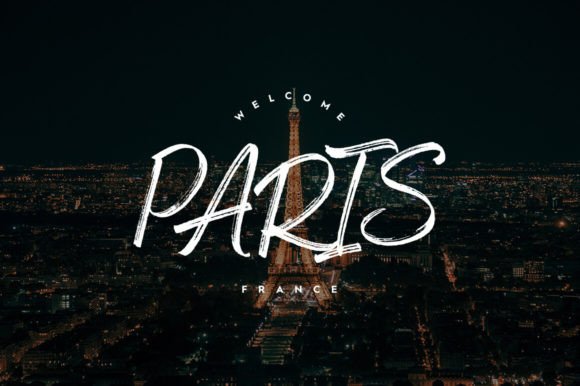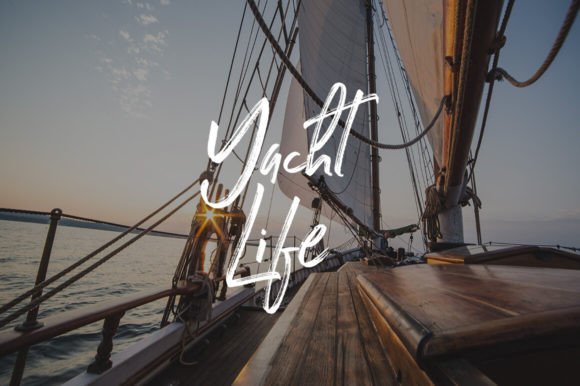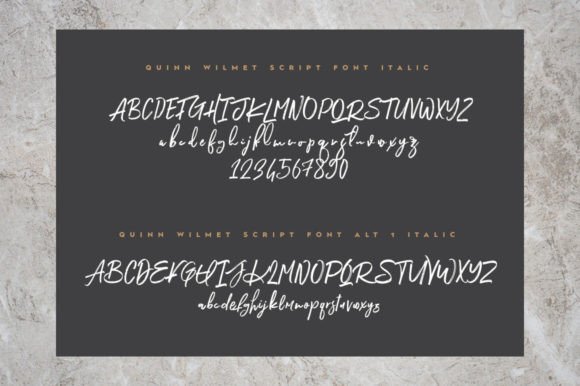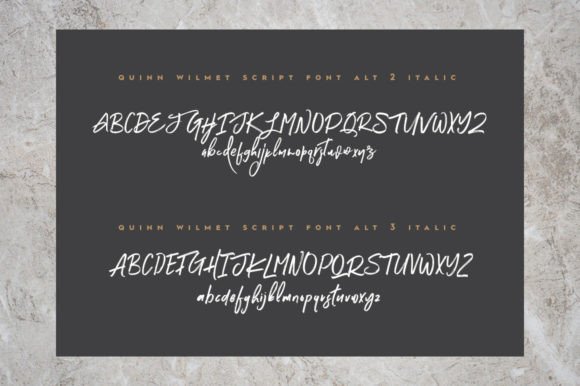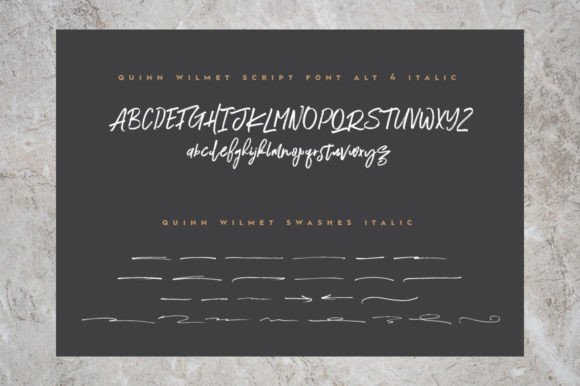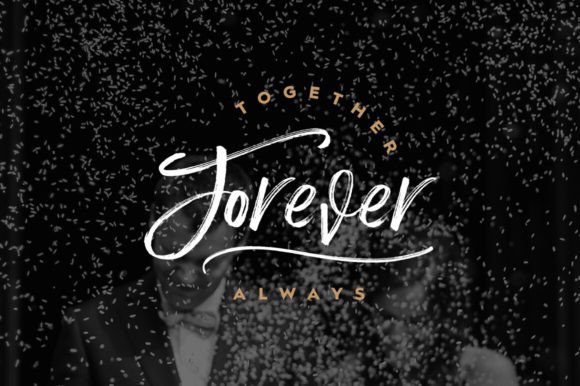
Introduction to Quinn Wilmet Font
The moment of truth arrives when you’re working on a creative project, and you’re struggling to find the perfect font to convey your message. You’ve scoured through countless options, but none seem to capture the essence of your design. That’s where the Quinn Wilmet Font comes in – a luxurious hand-crafted script font that will elevate your work to new heights.
With its solid set of base characters and 4 sets of alternate characters, plus additional swashes, this font pack offers endless possibilities for customization. Whether you’re designing wedding stationery, product packaging, or social media content, the Quinn Wilmet Font is the perfect design resource to help you stand out from the crowd.
Key Features of Quinn Wilmet Font
- Quinn Wilmet Font is designed with precision and attention to detail, ensuring a high-quality finish in any creative project.
- Can be easily scaled up or down without compromising on quality, making it an ideal choice for both print and digital designs.
Honest Review: Quinn Wilmet Font
I recently stumbled upon the Quinn Wilmet Font while searching for a free download to enhance my creative project. I was impressed by the font’s high quality and versatility, making it an excellent design resource.
What works well about the Quinn Wilmet Font is its modern aesthetic and wide range of weights, which allows for a lot of creative freedom in terms of typography. The font also features a transparent background, making it easy to use as a standalone element or layer it over other designs. ✨
Here are some of the font’s notable features:
- High-quality design with a modern aesthetic
- Wide range of weights for versatile use
However, I did encounter a few limitations with the Quinn Wilmet Font. ⚠️ The font’s lack of international character support may be a concern for designers working on projects that require multiple languages. Additionally, the font’s licensing terms may not be suitable for all users.
Overall, the Quinn Wilmet Font is a great addition to any designer’s toolkit, offering a high-quality and versatile font for creative projects. With some minor limitations, it’s definitely worth considering for your next design project.
Tips for Getting the Most Out of Quinn Wilmet Font
To get the most out of Quinn Wilmet Font, use it for creative projects that require a unique and stylish font. Experiment with different font sizes, colors, and combinations to achieve the desired look.
Quinn Wilmet Font is commonly used for:
– Social media graphics
– Blog posts and articles
– Business cards and flyers
– Infographics and presentations